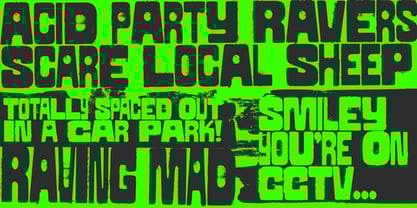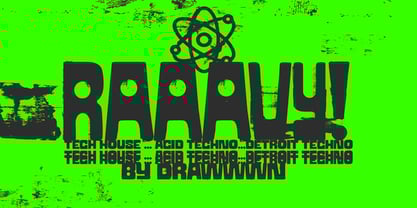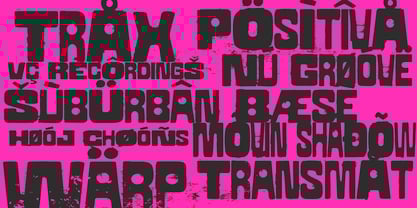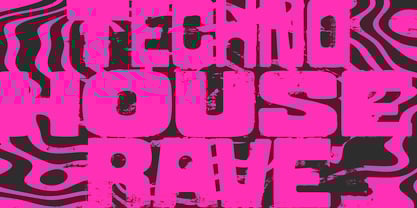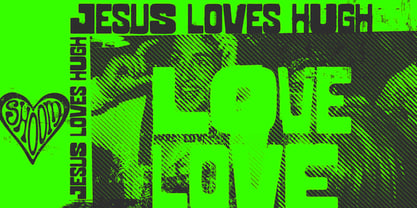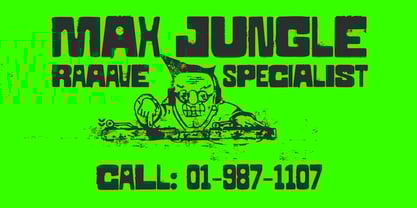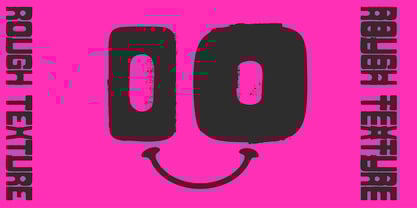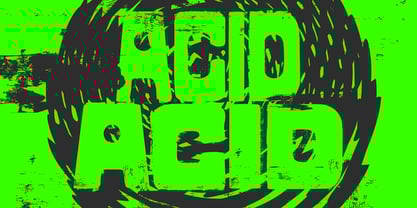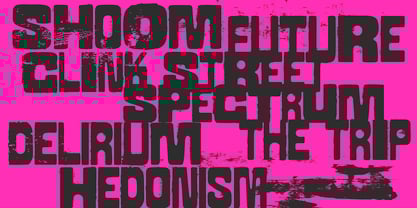
Raaavy
by Drawwwn
The Raaavy Font Family was designed by Ryan Thomas and published by Drawwwn. Raaavy contains 1 styles.
Raaavy is a captivating distressed vintage flyer typeface that embodies the essence of retro aesthetics. With its rough print texture and a deliberately photocopied appearance, this typeface exudes a bold and gritty character. Perfectly suited for a range of applications, from vibrant summer festivals to the underground vibe of sweaty basements, Raaavy allows for creative versatility. You can effortlessly mix and match its bold and regular weights to achieve a unique, nostalgic feel that resonates with the spirit of the past. Ideal for branding, event posters, and editorial designs, Raaave brings a touch of authenticity and a cool retro vibe to any project.